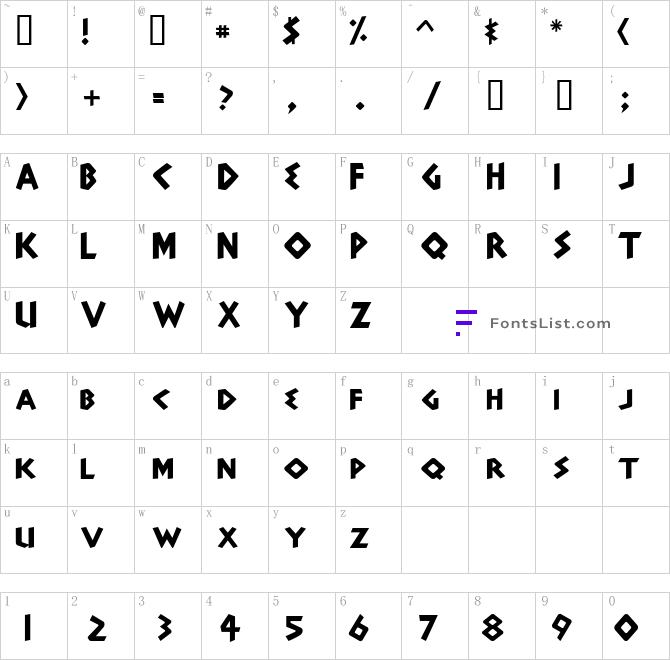
- Font Name:Adonais
Adonais.ttf is a very beautiful artistic font, Adonais.ttf is widely used in the design and printing of various books and pictures,Adonais.ttf has a strong visual impact,Adonais.ttf is a commonly used font in newspapers, magazines and books, and is used in posters, e-commerce Poster design, store design, logo design, font design and other fields.Adonais.